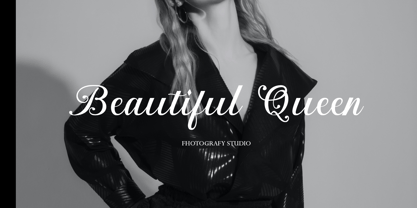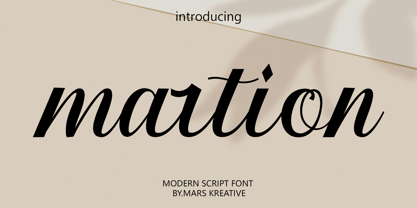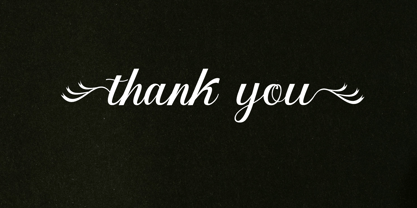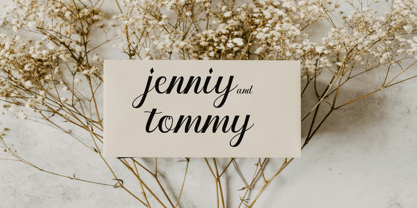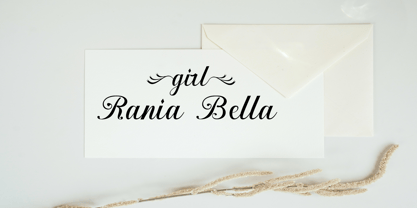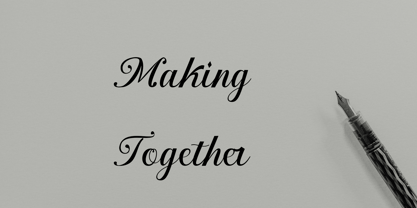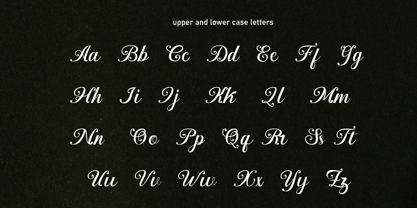
Martion
by Mars Creative
The Martion Font Family was designed by Al Muzammil and published by Mars Creative. Martion contains 1 styles. More about this family
Martion is a modern script font that blends classic elegance with a contemporary touch. Each letter flows gracefully with smooth curves and stylish italics, creating a luxurious yet professional look. Its sleek and confident shapes make it perfect for branding, wedding invitations, fashion logos, and editorial designs that require a refined and modern aesthetic. Designed by Mars Kreative, this font beautifully balances the charm of handwritten style with the precision of digital typography.
Designers: Al Muzammil
Foundry: Mars Creative
Mars Creative was founded in 2022 and is run by Al Muzammil. I love to draw letters, have fallen in love with writing and write letters for a living. I love exploring and seeing how the typeface reflects the personality of the brand. I want to continue to develop my creativity and use my passion to bring greater benefits to myself and the designer community. Founded Mars Creative to help designers vote for their projects. I concentrate on handcrafted quality fonts, mostly script styles and more. Now pursuing my new passion completely from my home studio. Turned my freelance business into a type designer.